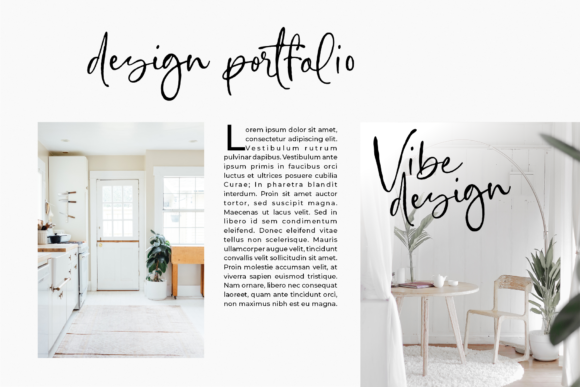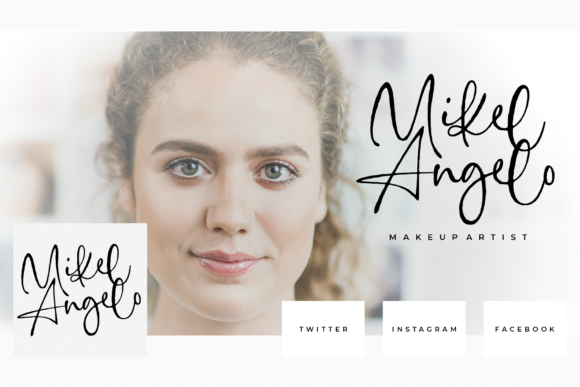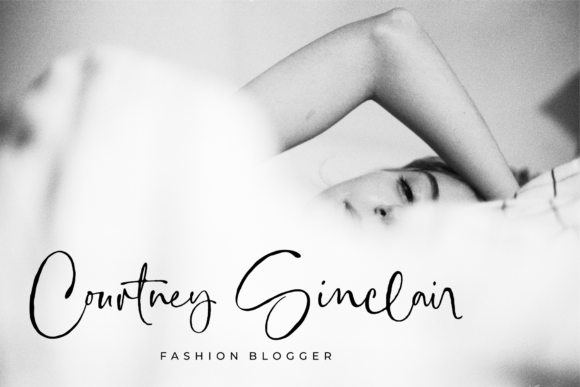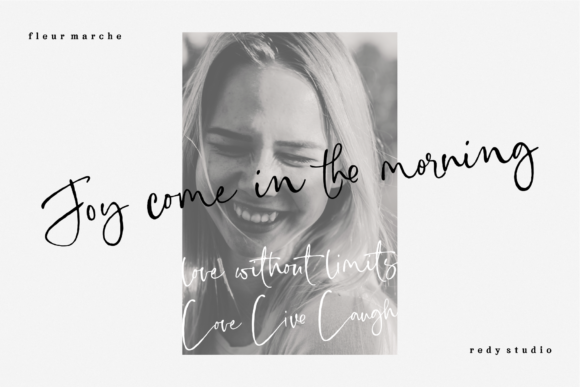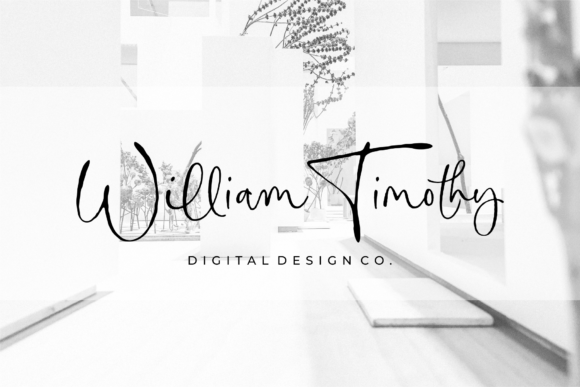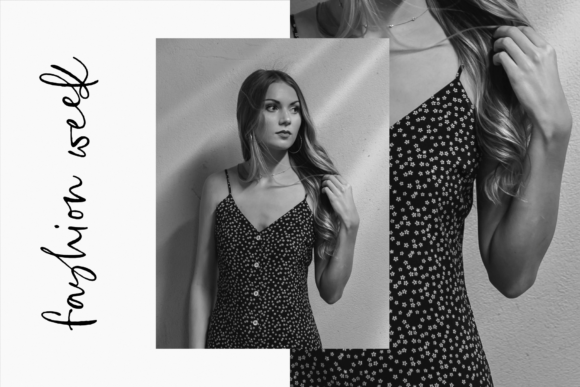
Introduction to Fleur Marche Font
There’s nothing quite like the thrill of bringing a creative project to life. It’s the moment when all the pieces come together, and your vision finally takes shape. For designers, this moment is especially precious, as it’s the culmination of hours, days, or even weeks of hard work and dedication. And, of course, the right font can make all the difference. That’s why we’re excited to introduce you to the Fleur Marche Font – a raw and organic script font that’s full of authenticity and charm.
Whether you’re working on a high-end branding project or a simple blog post, the Fleur Marche Font is sure to add a personal touch that sets your design apart. With its unique, handwritten feel and transparent background, this font is a valuable resource for any designer looking to elevate their work. And the best part? It’s available for free download, making it an instant asset for your next creative project.
Key Features of Fleur Marche Font
- High-quality design resource with a unique, elegant style perfect for creative projects.
- Features a transparent background, making it ideal for use on images or backgrounds with complex designs.
- Designed with a modern aesthetic, making it suitable for a wide range of creative projects, from branding to editorial content.
Honest Review: Fleur Marche Font
I recently stumbled upon the Fleur Marche Font while searching for a unique, high-quality font for my creative project. After using it for a while, I thought it was time to share my honest review.
- ✨ The Fleur Marche Font is incredibly versatile and can be used for a wide range of design projects, from elegant invitations to modern branding.
- ✨ The font features a beautiful, delicate design with a transparent background, allowing for seamless integration into any design.
- ⚠️ The font may not be suitable for use in very small text sizes, as the delicate design can become distorted.
- ⚠️ The font is not available in as many weights and styles as some other popular fonts, which may limit its usability in certain situations.
Overall, I’m impressed with the Fleur Marche Font and would definitely recommend it as a design resource for anyone working on a creative project.
Fleur Marche Font
Tips for Getting the Most Out of Fleur Marche Font
To get the most out of Fleur Marche Font, use it in combination with a transparent background to create a clean and elegant design. Experiment with different font sizes and styles to add visual interest to your project.
Fleur Marche Font is ideal for designing wedding invitations, greeting cards, and other creative projects that require a touch of elegance and sophistication. You can also use it to create custom logos, branding materials, and marketing collateral.